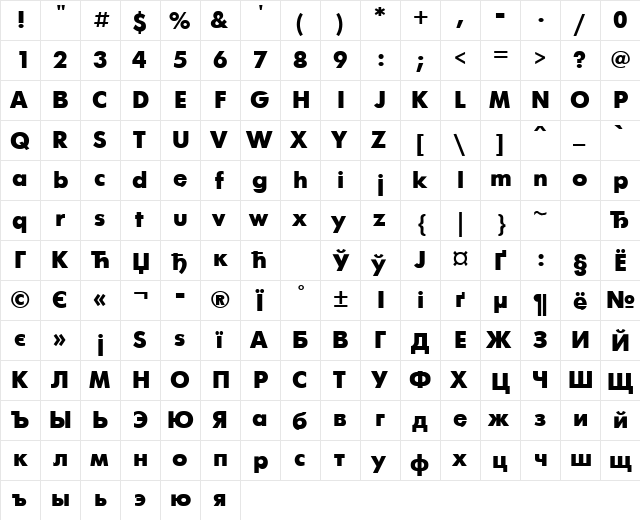
Futuris Black Bold
Design Context for Futuris Black Typeface
Futuris Black has a distinctly futuristic character, with geometric precision and clean angles that feel at home in technology, gaming, and sci-fi contexts. Its bold stroke weight gives it real presence on the page.
Pro Tip: Use Futuris Black in combination with a neutral sans for body text. Let it define the brand voice in headlines while keeping reading comfortable elsewhere.